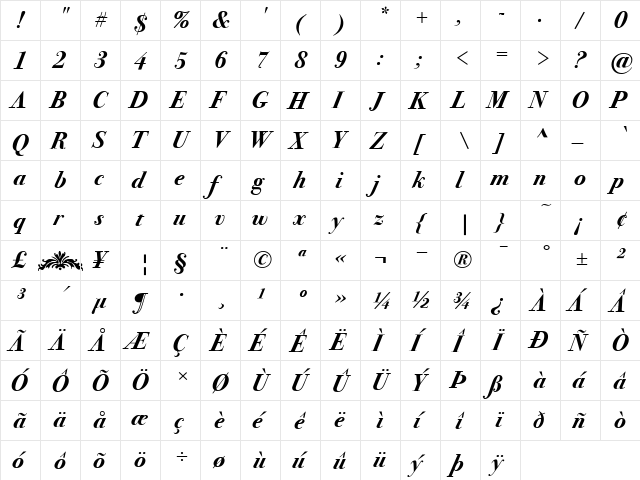
Bodoni Seventytwo ITC Regular Font Preview
Bodoni Seventytwo ITC Regular
Bodoni Seventytwo ITC Regular Font Details
Design Context for Bodoni Seventytwo ITC Typeface
Bodoni Seventytwo ITC offers clean, dependable letterforms without strong stylistic allegiance, making it a practical choice for designers who need flexibility.